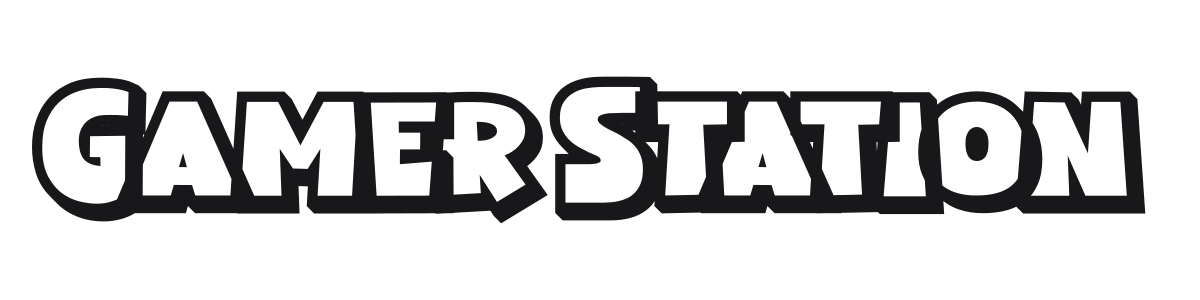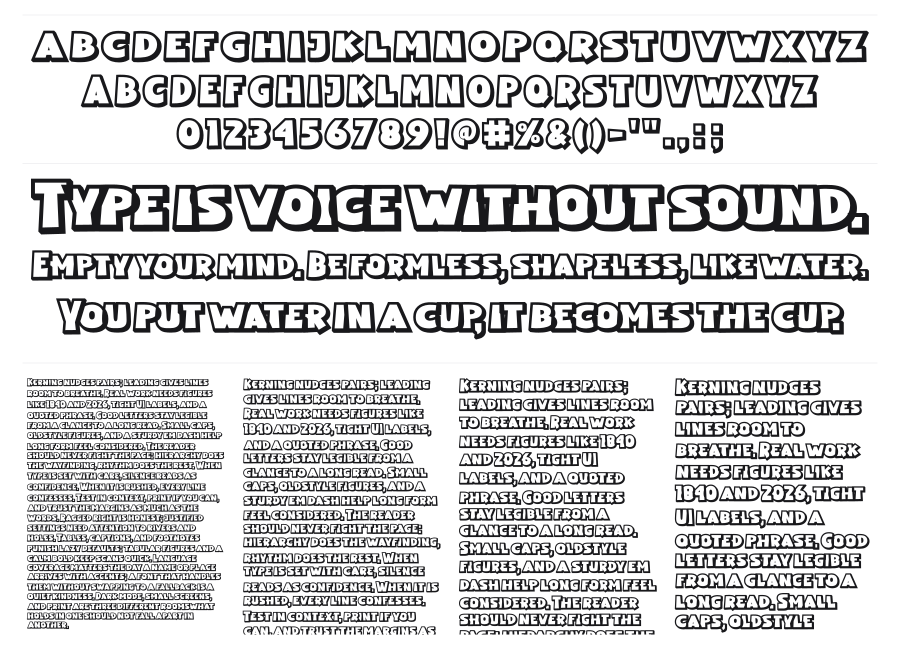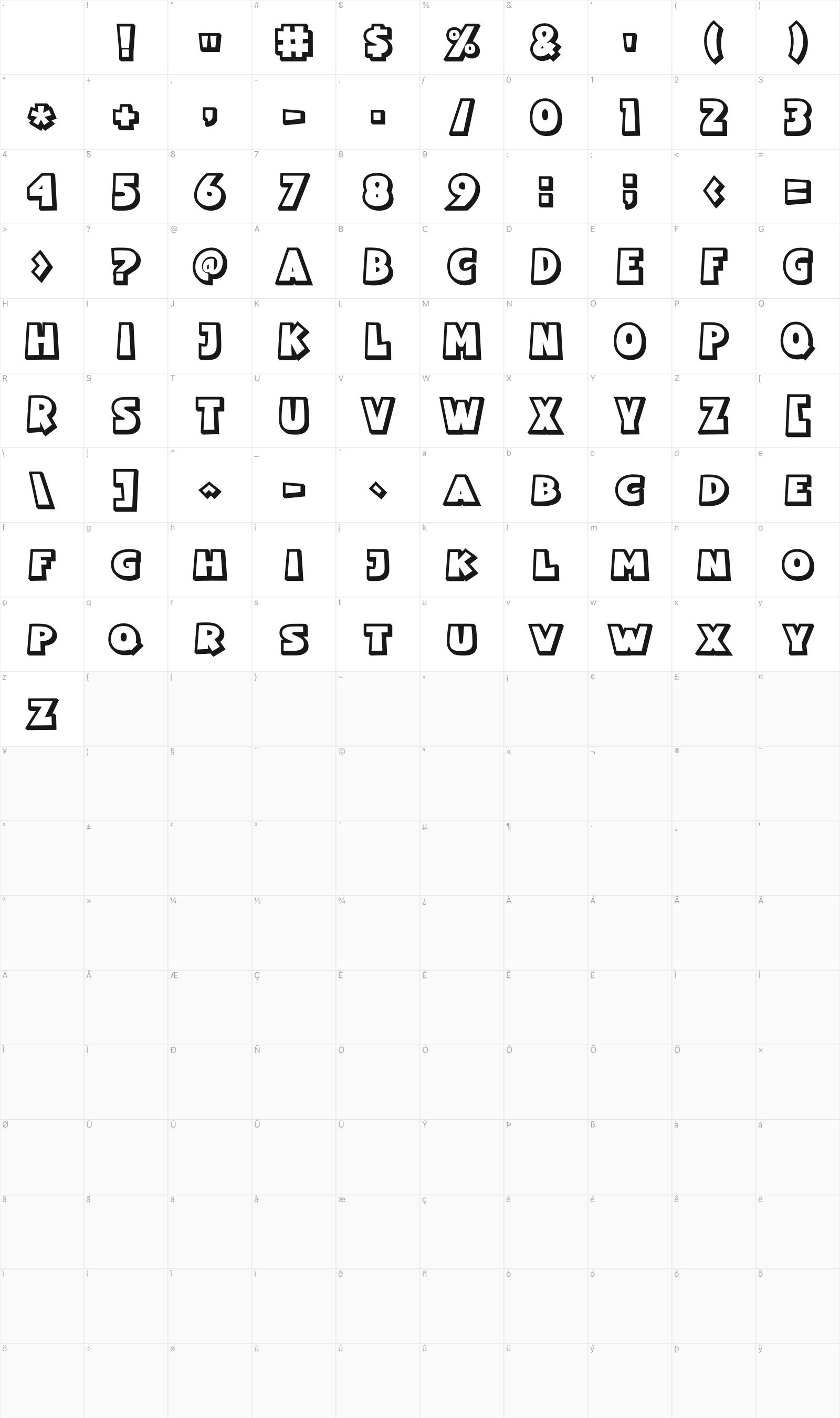
Gamer Station
Gamer Station is a heavy rounded display font with a bold extruded shadow that gives every character a thick, dimensional pop. The chunky rounded forms and near-monoweight strokes pull straight from comic book lettering and classic arcade game titles. It works at large sizes where the extrude effect can breathe.